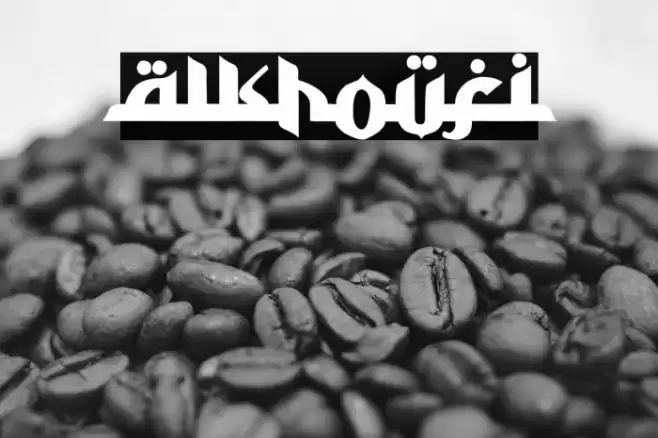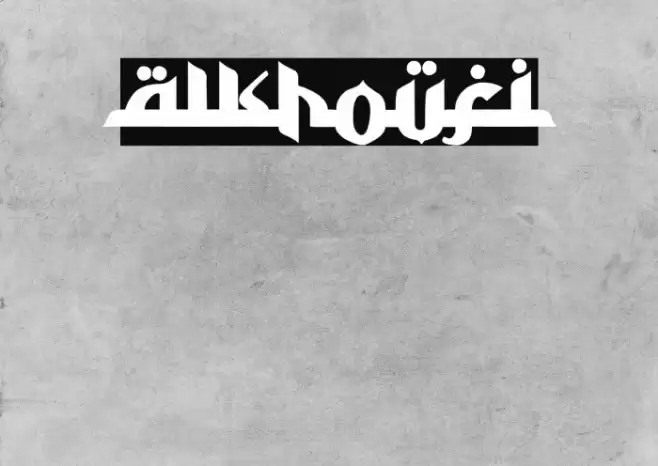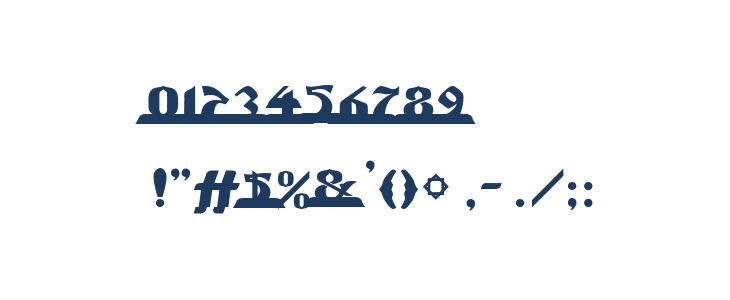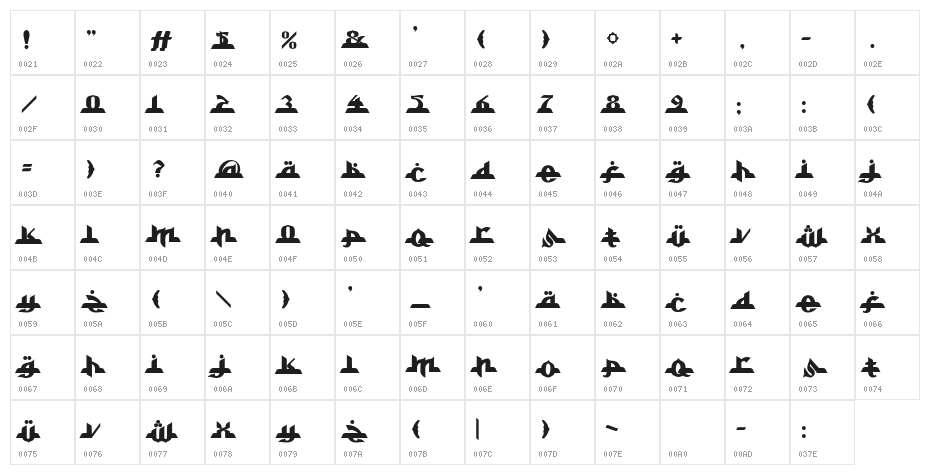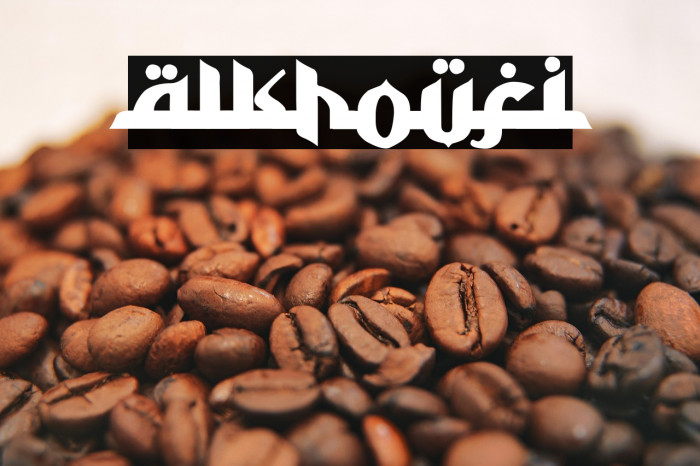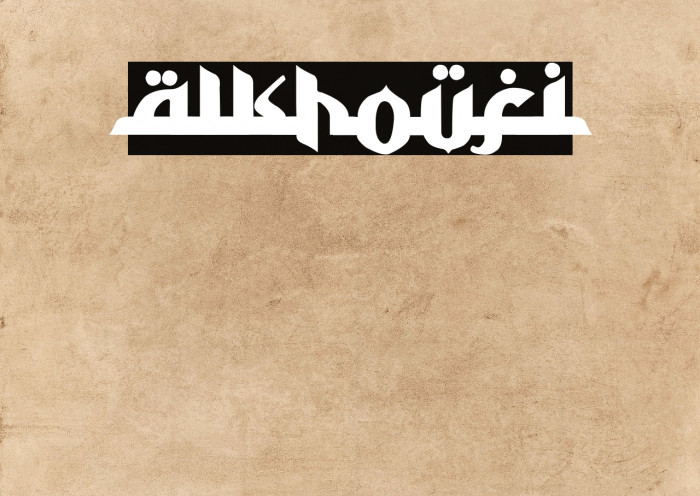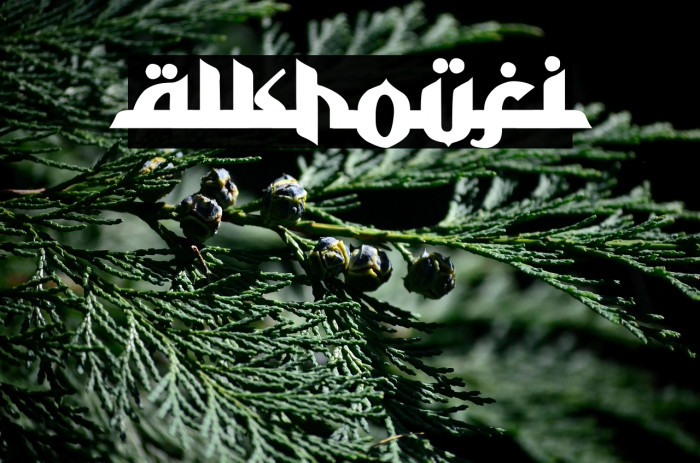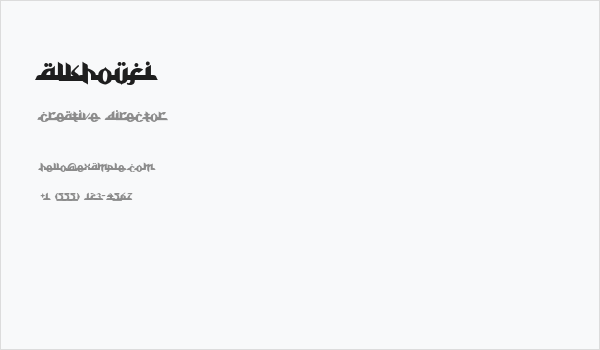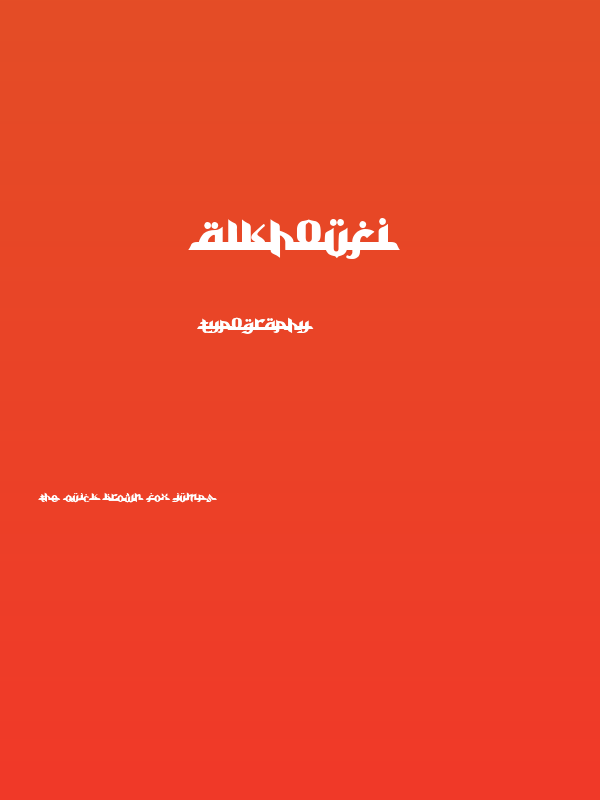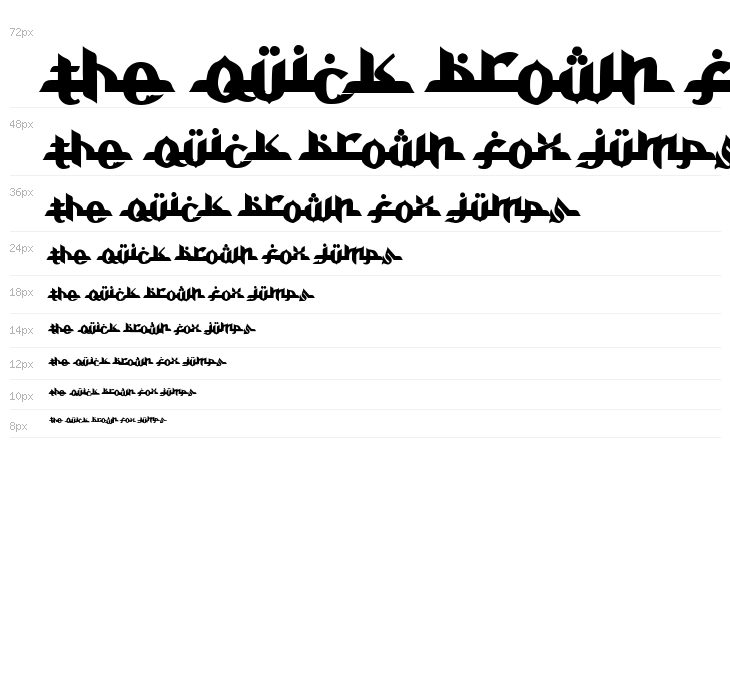
Alkhoufi Font
Alkhoufi Description
This font features a bold and striking design with a unique blend of modern and traditional elements. The characters are heavily stylized with thick strokes and sharp angles, creating a sense of movement and energy. The uppercase and lowercase letters maintain a consistent style, with some characters incorporating intricate details that add to the overall decorative appearance. The numerals and special characters follow the same design principles, ensuring uniformity across all glyphs. This font is ideal for projects that require a strong visual impact and a touch of artistic flair.
A bold, decorative font with modern and traditional influences from Uncategorized fonts.
- Proposed Projects: Ideal for branding, poster design, and artistic projects that require a strong visual impact.